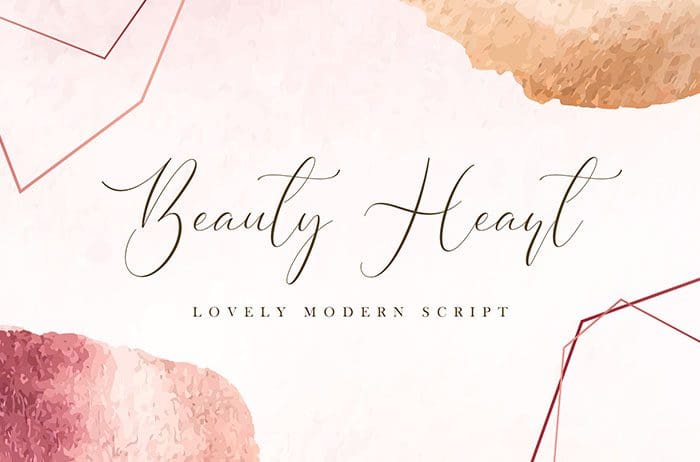
Beauty heart script Font with Lovely Style. This font is perfect for fashion brand, wedding invitation, business card, logo brand, signature, and also for calligraphy purpose. This font is available only for personal use. Created this font by StringLabs. You can also search more freeĀ Script Fonts. Thanks.